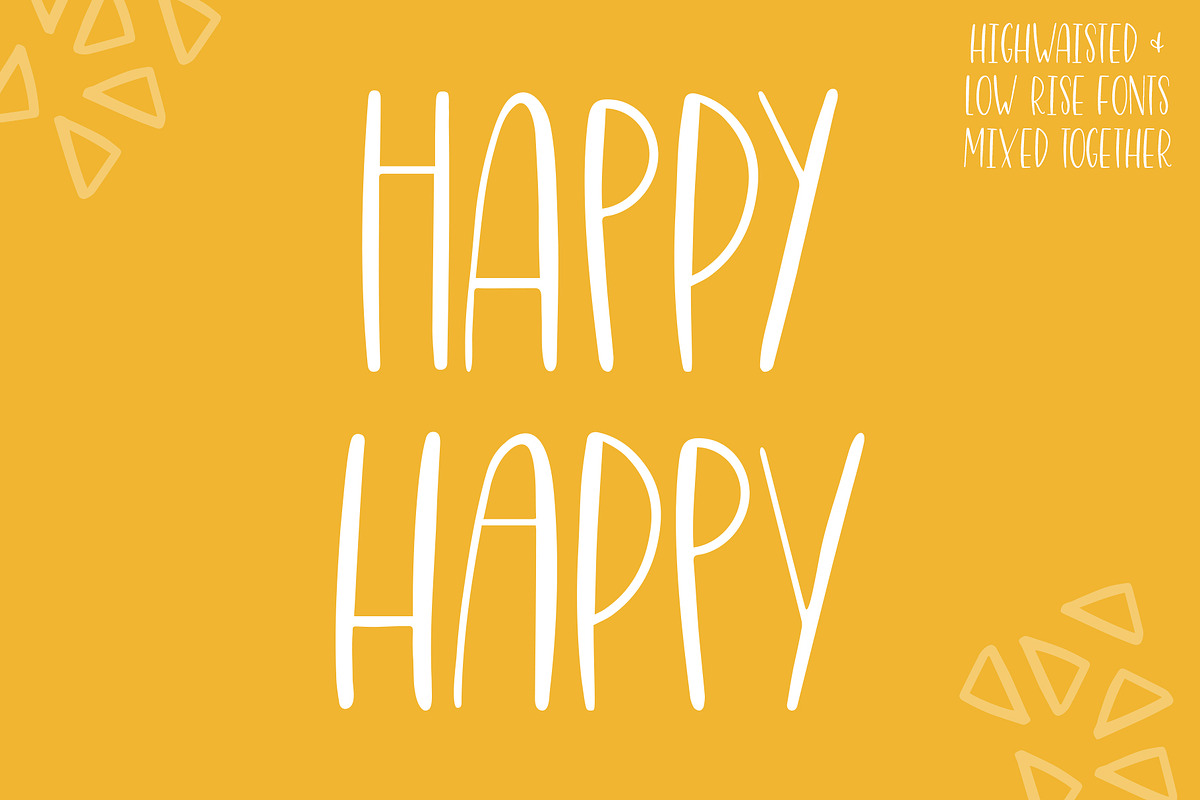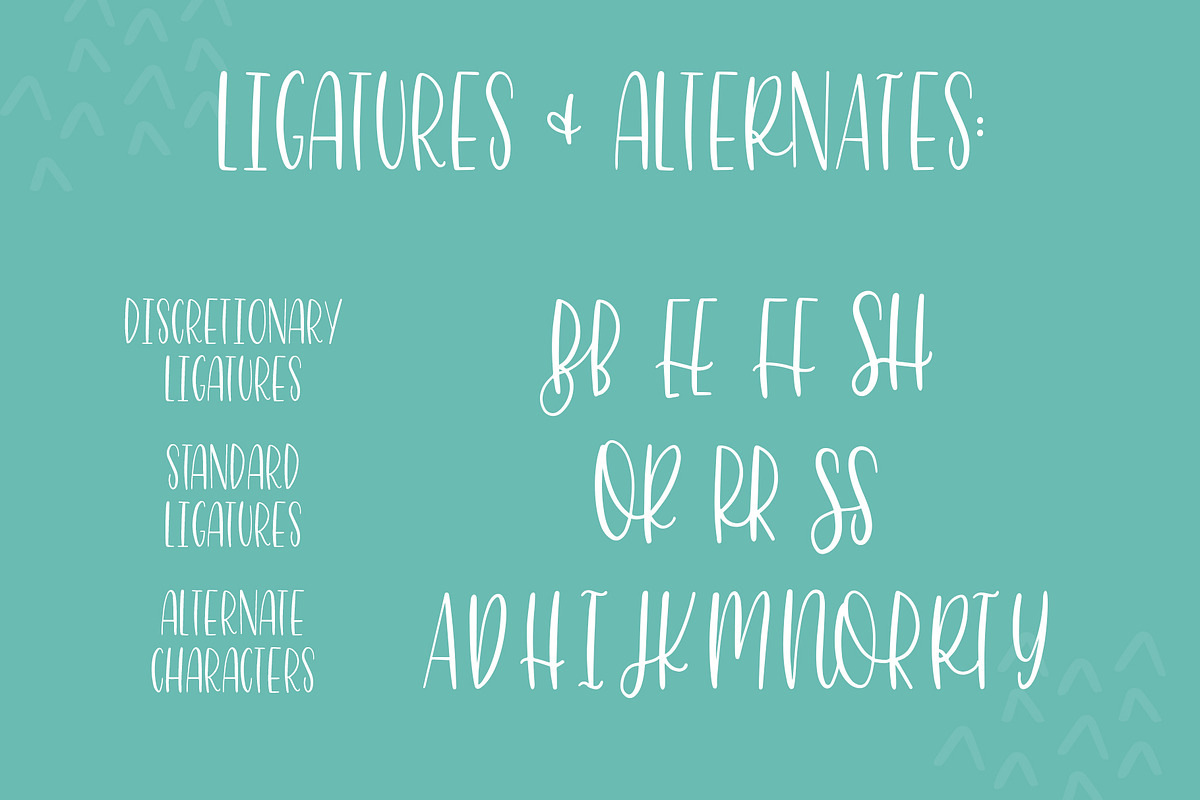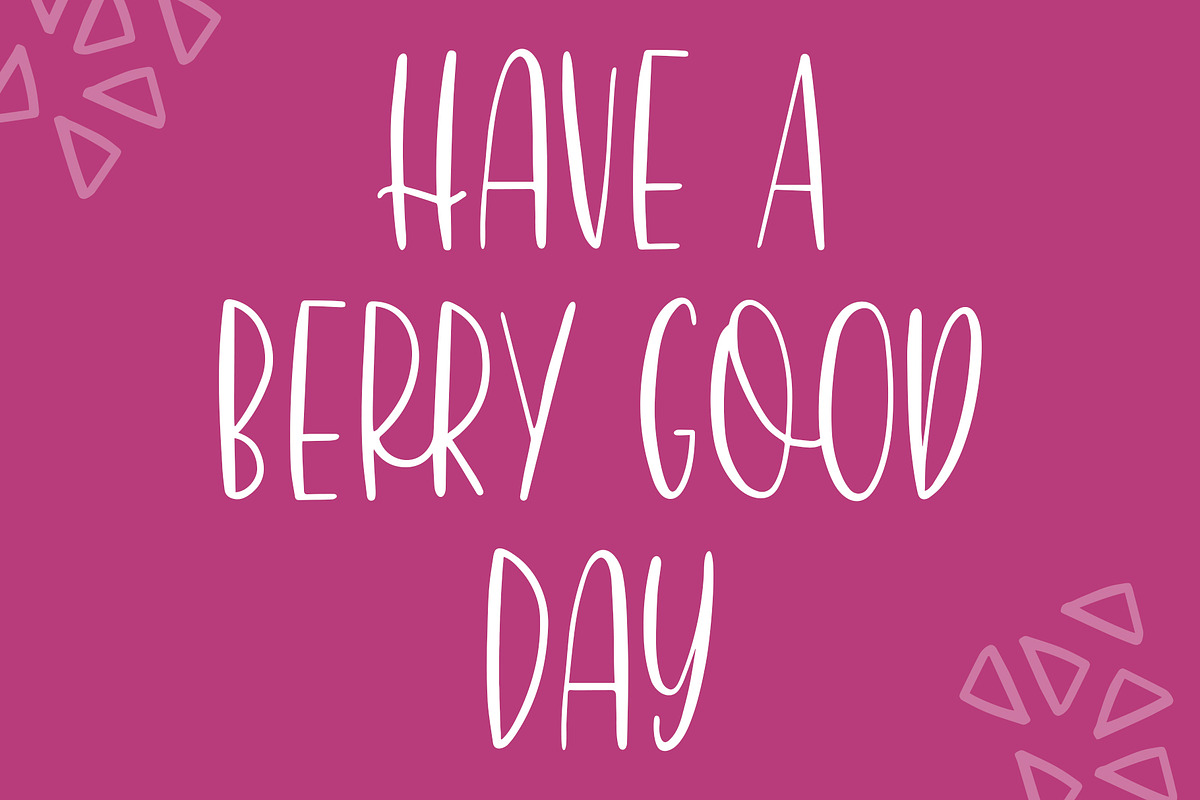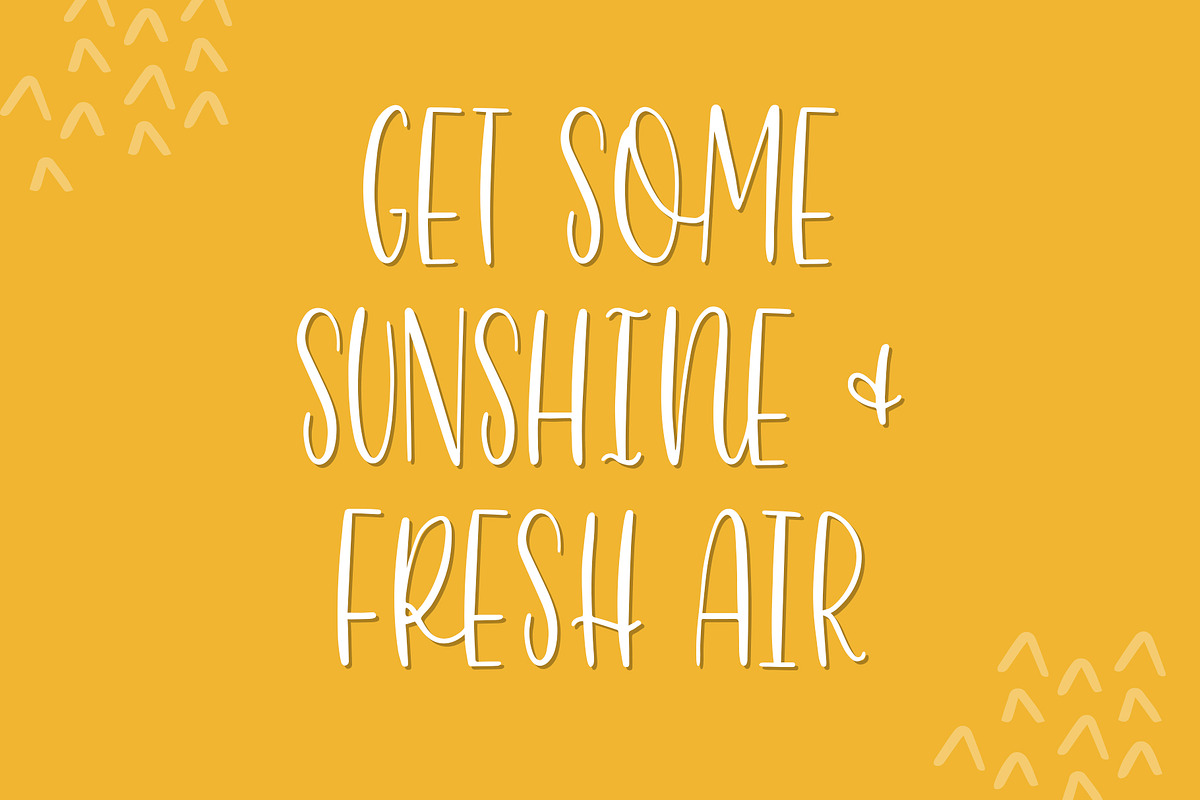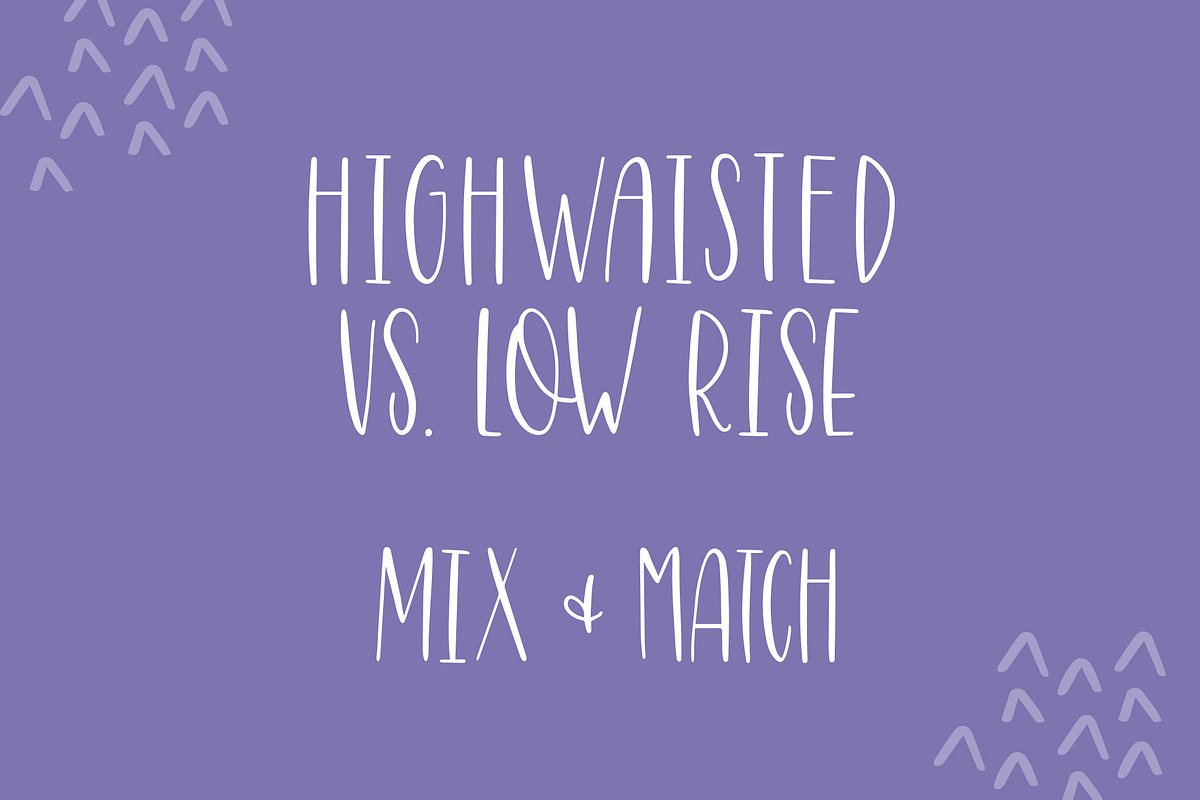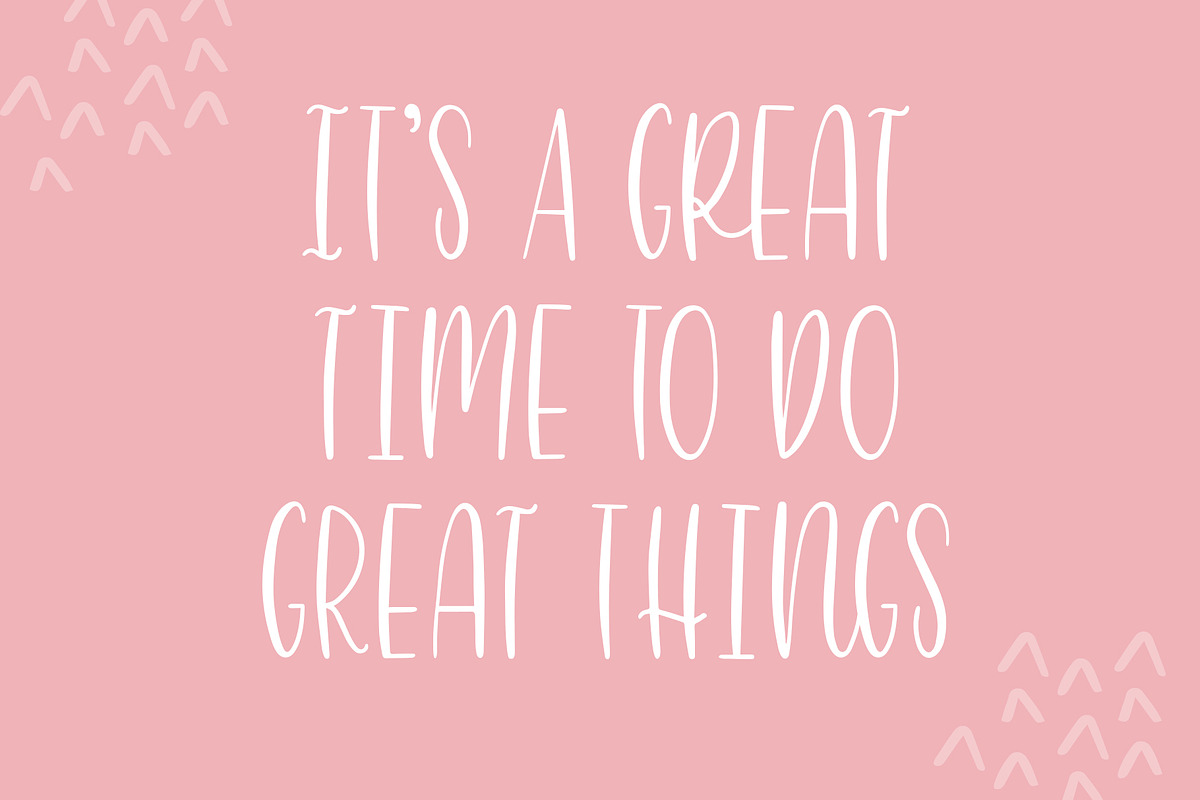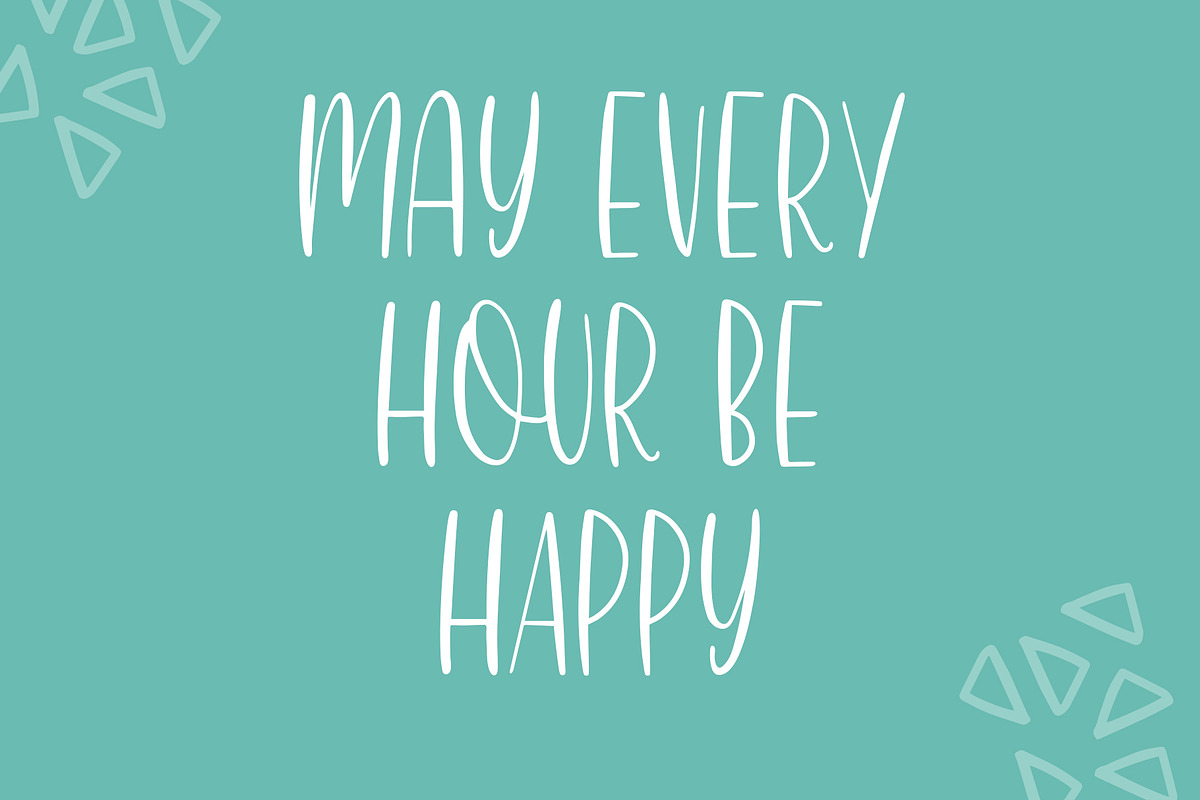
Low Rise, Skinny All Caps Font
Low Rise is inspired by my font Highwaisted. I took the same attitude of that font, but lowered the "waists" of the font, thus naming it Low Rise. You can get it bundled with Highwaisted to save 60% here:
Letters A-Z are in both the capital and lowercase letters, just in case you forget to turn the caps lock on!
- 3 Standard Ligatures
- 4 Discretionary Ligatures
- 13 Alternate Characters
- Numbers, punctuation, and multilingual support for Western European languages